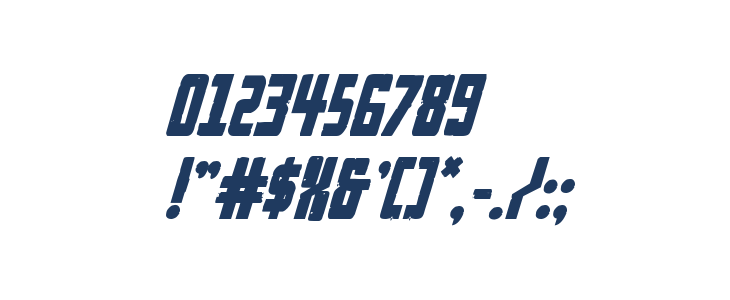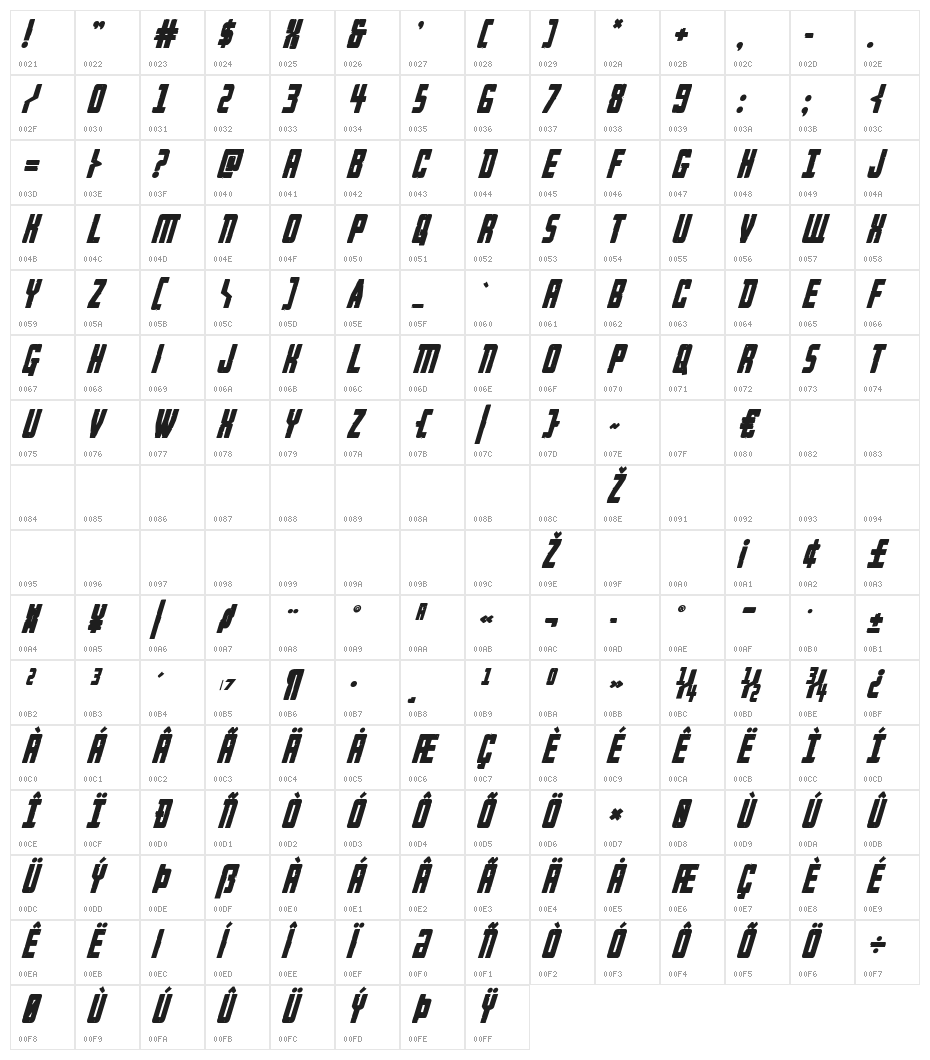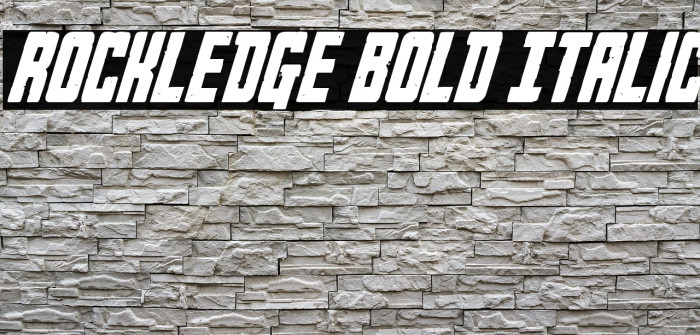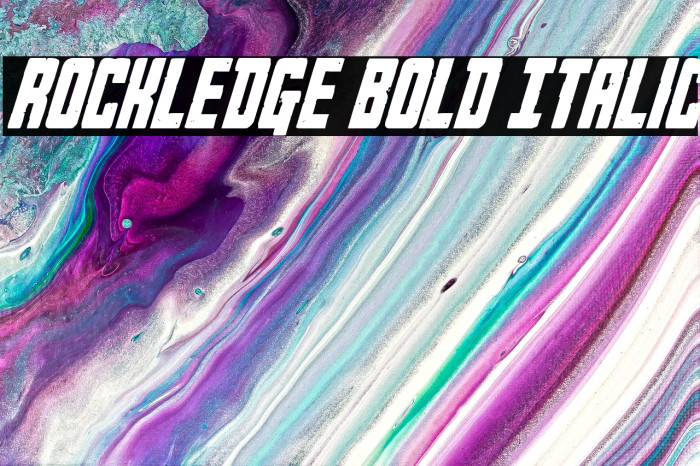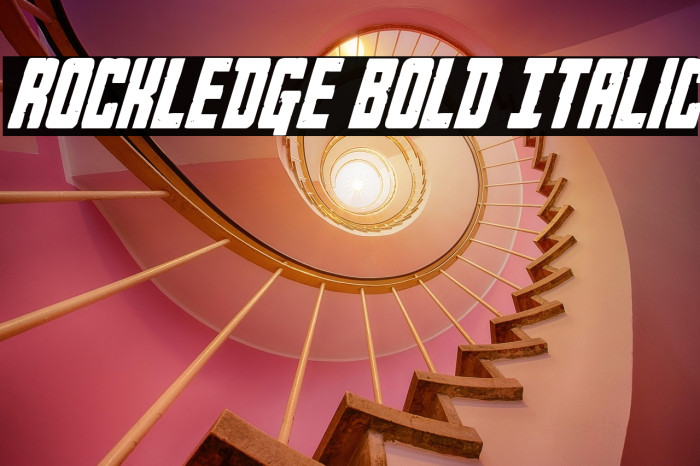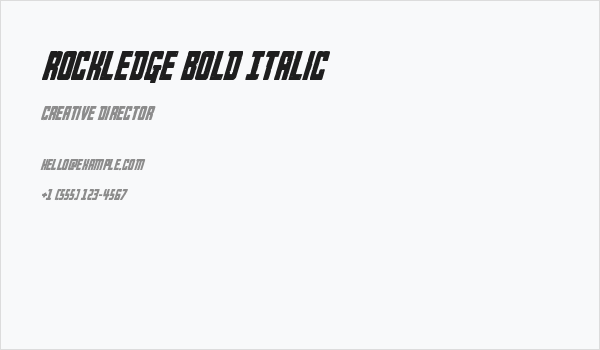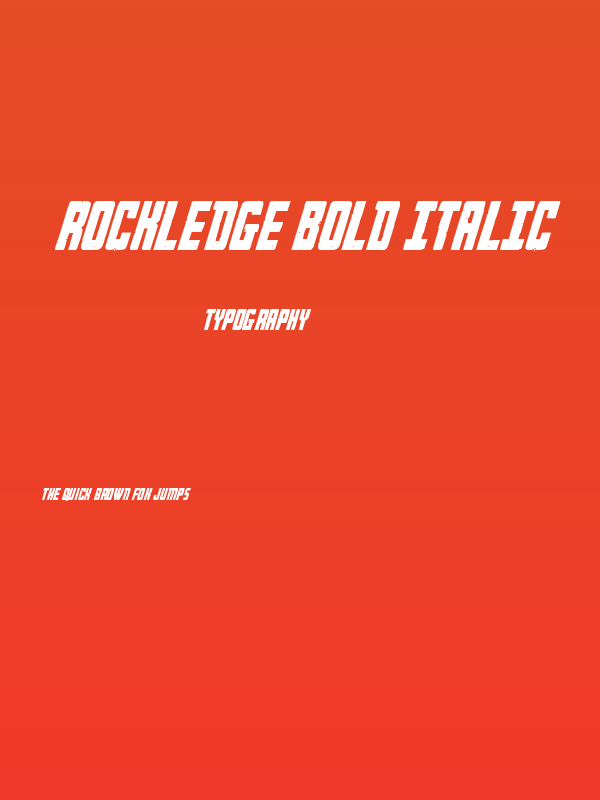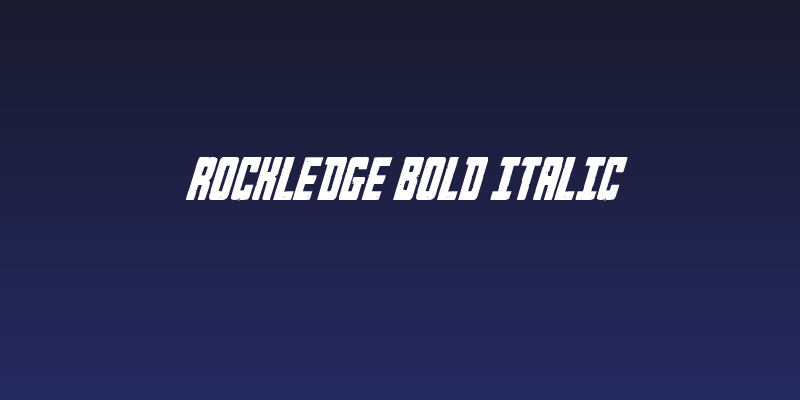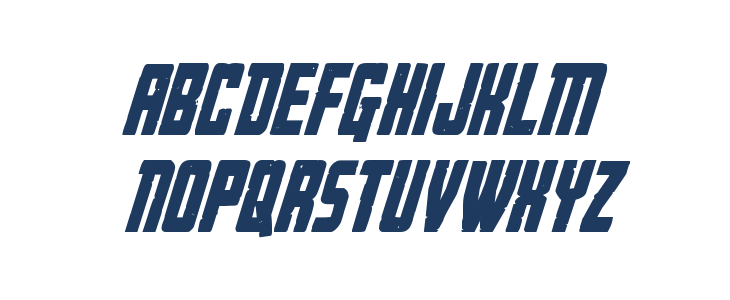
Rockledge Bold Italic Font
Rockledge Bold Italic Description
This font features a bold and italicized style with a strong, impactful presence. The characters are designed with a slight slant, giving them a dynamic and forward-moving appearance. The strokes are thick and consistent, providing a robust and confident look. The uppercase and lowercase letters maintain a uniform width, contributing to a cohesive and structured aesthetic. The numbers and special characters are crafted with the same boldness, ensuring readability and emphasis. This font is ideal for making statements and drawing attention.
| Proposed Projects | Ideal for sports branding, posters, headlines, and any design needing a strong, impactful typeface. |